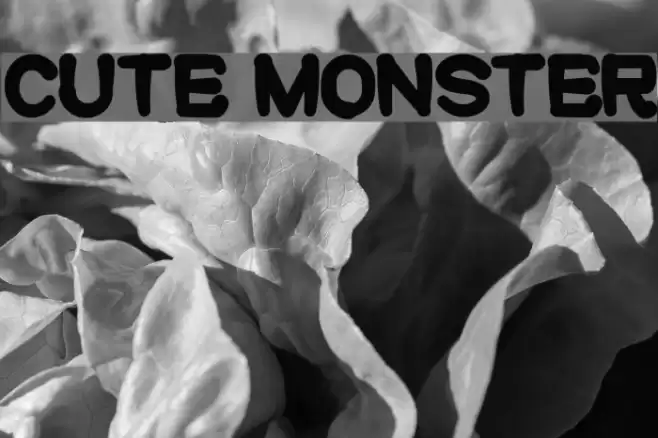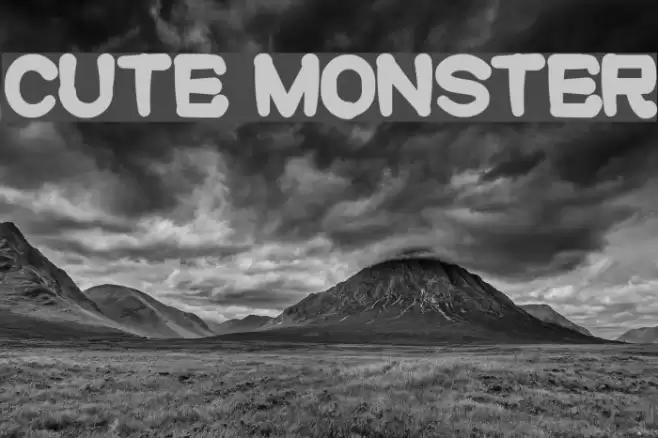
cute monster Font
cute monster Description
This playful and bold font features thick, rounded letters with a cartoonish style. The characters have a consistent weight, giving them a strong presence while maintaining a friendly and approachable look. The rounded edges and slightly irregular shapes add a whimsical touch, making it ideal for projects that require a fun and informal tone. The font is highly legible, with clear distinctions between each letter, making it suitable for both headlines and short text blocks. Its unique style is perfect for children's books, playful branding, or any creative project that seeks to convey a sense of joy and imagination.
A bold, playful font with rounded, cartoonish letters from Uncategorized fonts.
- Proposed Projects: Ideal for children's books, playful branding, and creative projects.
- Overall Style: Playful, Cartoonish